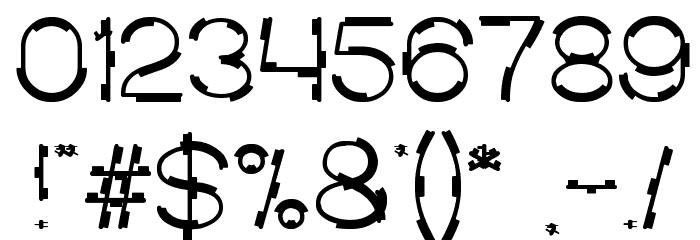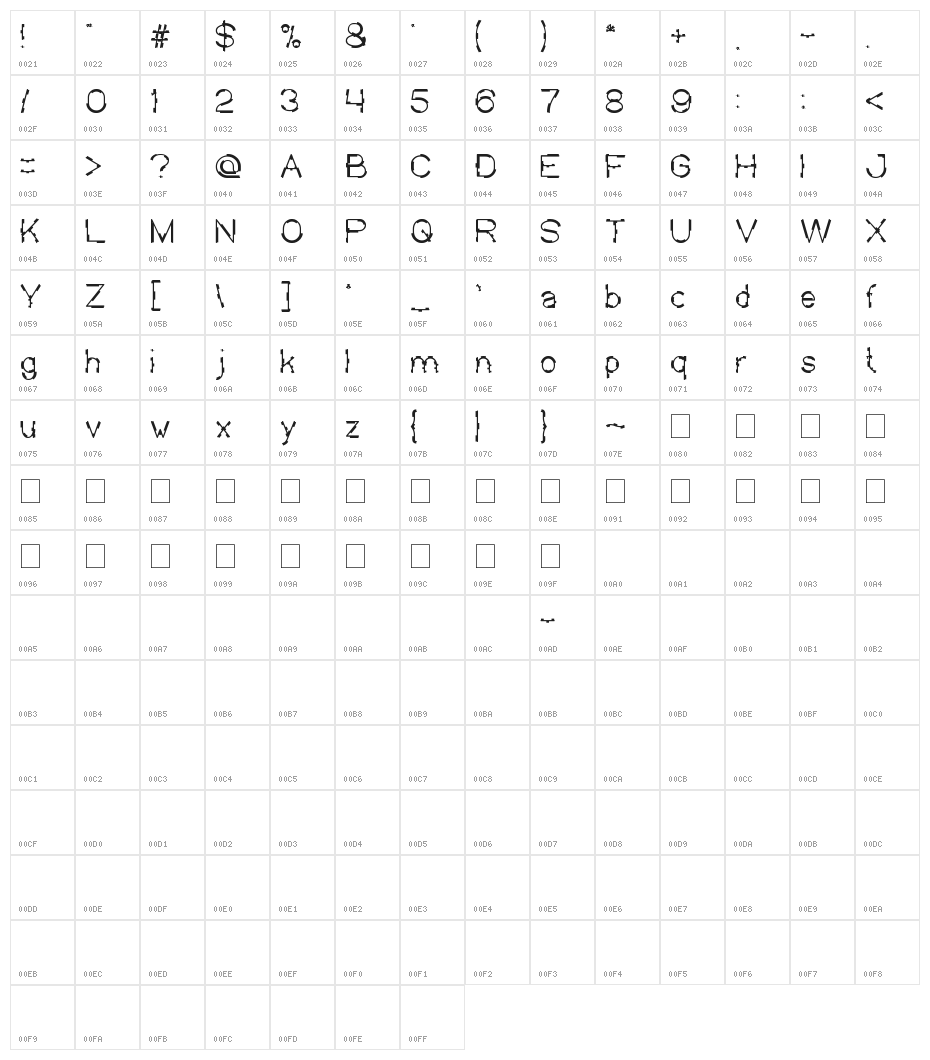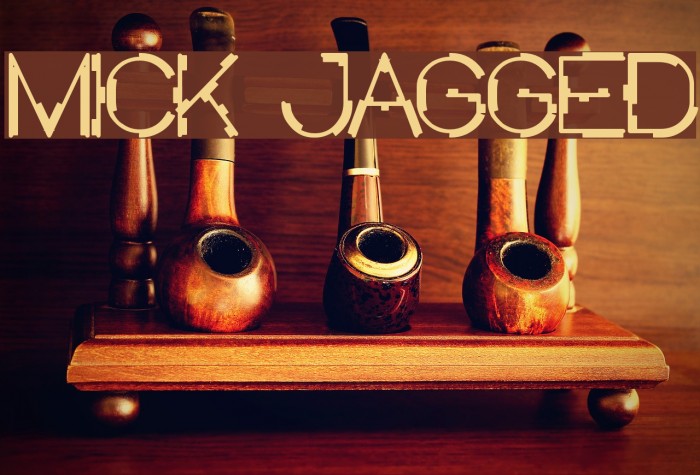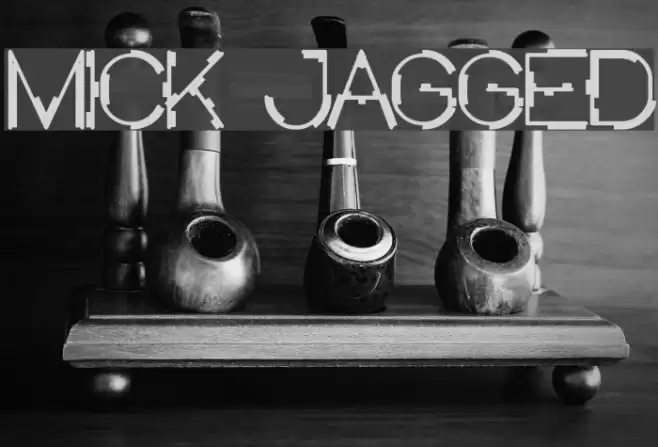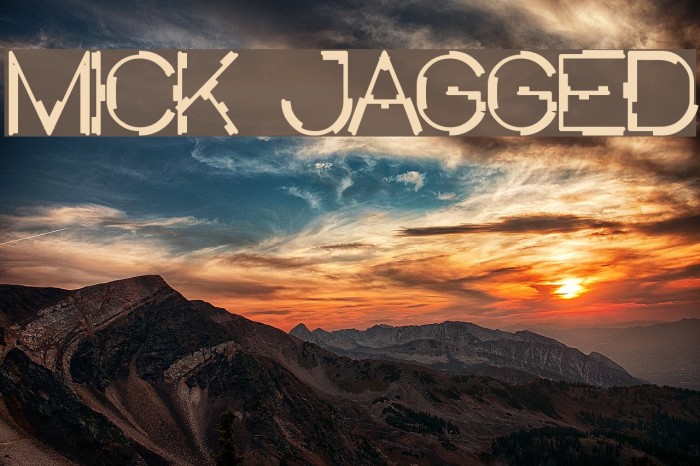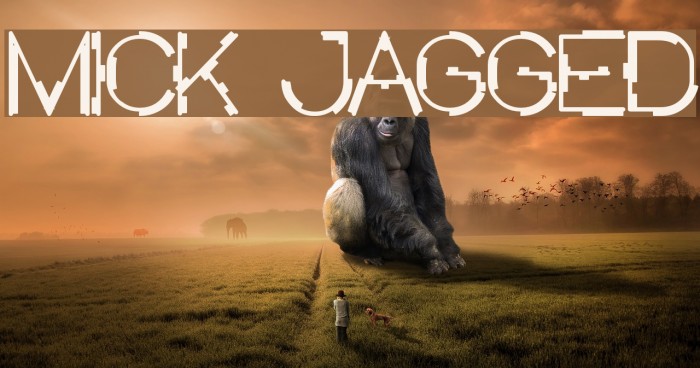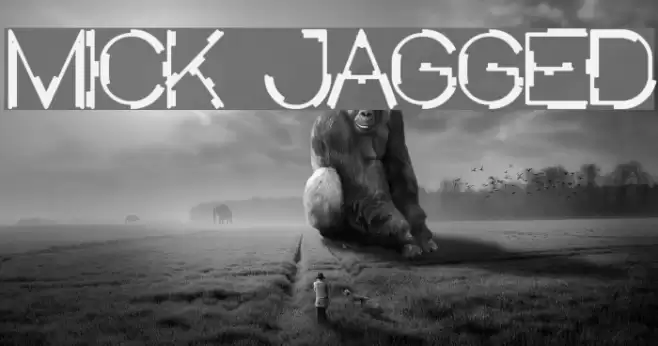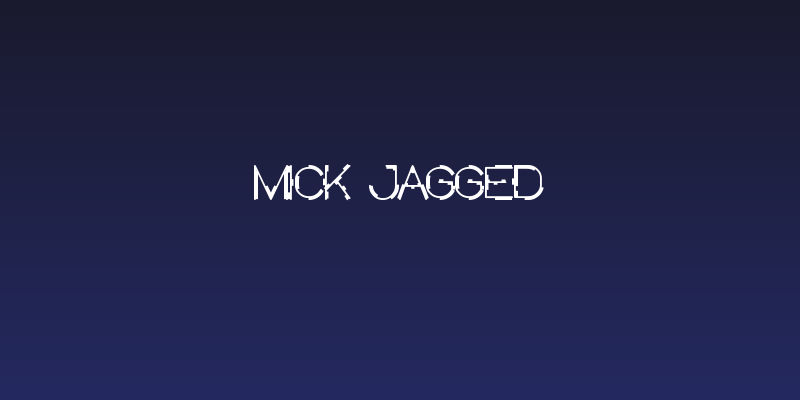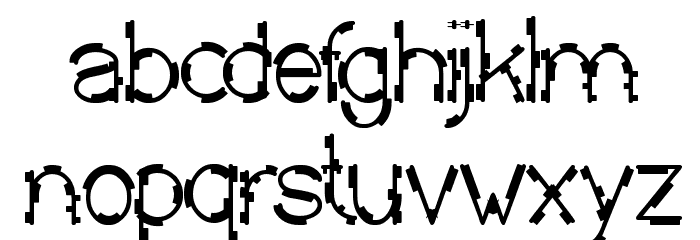
MICK JAGGED Font
MICK JAGGED Description
This font features a unique, jagged design that gives it a distinct, edgy appearance. The characters are constructed with irregular, angular edges that create a sense of movement and dynamism. The uppercase and lowercase letters maintain a consistent style, with sharp corners and a slightly rough texture that adds to the font's overall character. The numerals and special characters follow the same design principles, ensuring a cohesive look across all elements. This font's unconventional style makes it stand out, offering a modern twist on traditional letterforms.
| Proposed Projects | Ideal for music album covers, edgy branding, posters, and creative design projects that require a bold, unconventional typeface. |